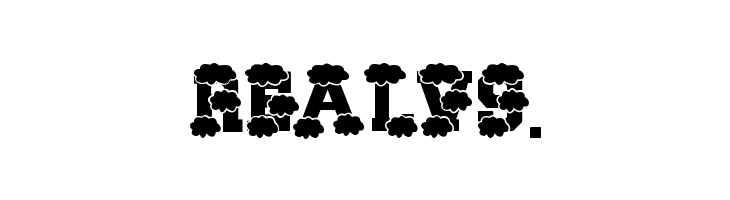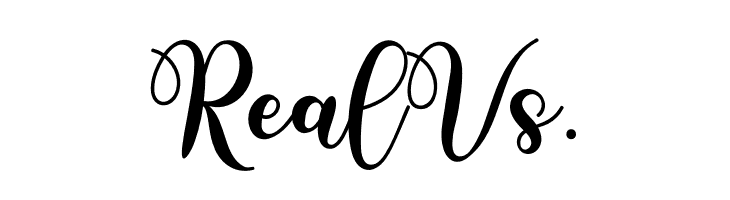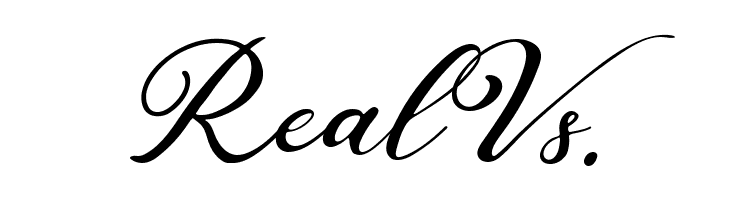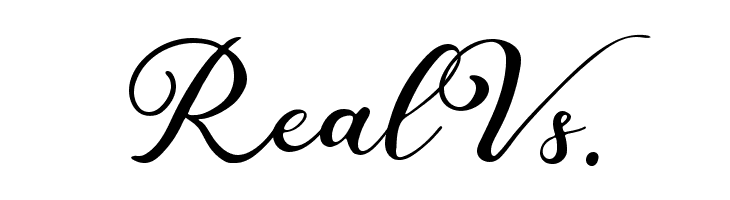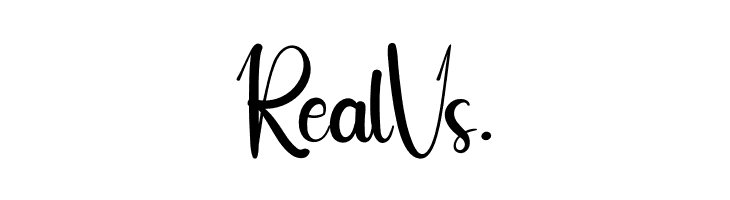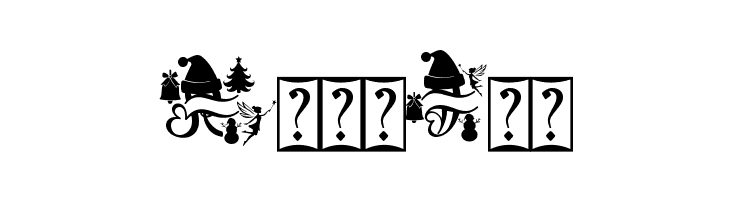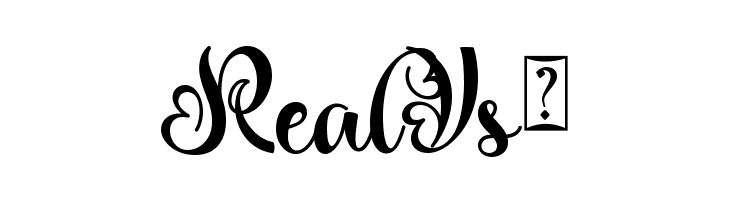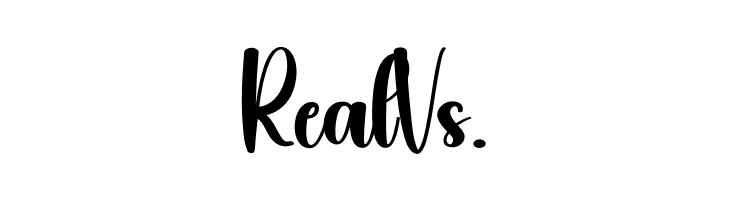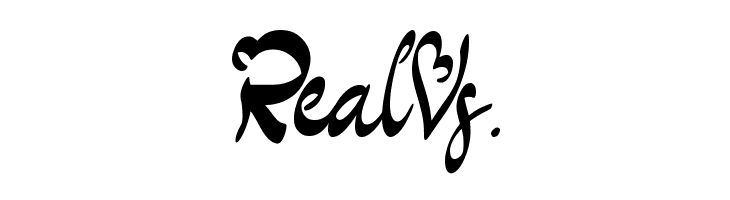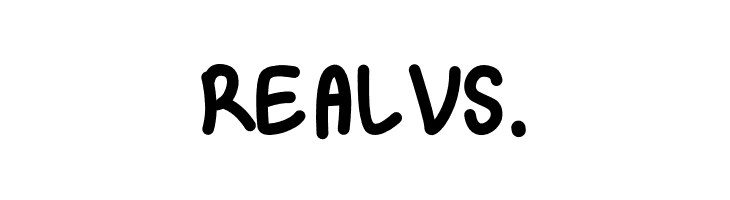
Ornate, high-contrast script with flowing, decorative strokes.
Ornate, italic script with festive, decorative flourishes.
Bold, festive script with calligraphic, hand-drawn style.
A bold, hand-drawn display font with playful, graffiti-like strokes.
A bold, playful sans-serif with a hand-drawn, festive style.
Bold, retro, hand-drawn display font with playful curves.
Ornate monogram font with integrated Christmas illustrations.
Ornate, heart-themed script with festive and romantic flair.
Decorative serif font with festive, high-contrast strokes and ornamental details.
Ornate, monogram-inspired font with royal and decorative elements.
Playful rounded sans-serif with a handwritten, casual style.
Ornate, festive script with elaborate swashes and bold lowercase forms.
Ornate Christmas-themed decorative monogram font.
Tall, narrow handwritten script with fluid, playful strokes.
Bold, decorative script with festive, handwritten style.
Playful handwritten script with tall, looping forms and a whimsical feel.
A bold, festive display font with cloud or snow accents.
Playful, rounded sans-serif with a hand-drawn look.
Expressive, bold handwritten script with festive, decorative swashes.
Bold, festive handwritten script with decorative swashes.
Bold, rounded handwritten font with a playful and casual style.
Whimsical, tall handwritten font with playful details.
Playful rounded sans-serif with informal, friendly shapes.
Playful, rounded sans-serif with a hand-drawn feel.
A rounded, playful handwritten font with a casual style.
Playful handwritten script with tall, narrow, and flowing letters.
Ornate script font with festive, swirling strokes.
Bold, retro geometric display font with high contrast and rounded shapes.
Playful, rounded sans-serif with whimsical curves and tall, narrow forms.
Playful handwritten script with whimsical, flowing lines.
Bold, brush-style handwritten font with a festive and playful vibe.
Playful, tall handwritten script with rounded ends.
Ornate, festive script with heart flourishes and high contrast.
Festive monogram font with Christmas-themed decorations.
Bold, festive display font with snow-covered letters.